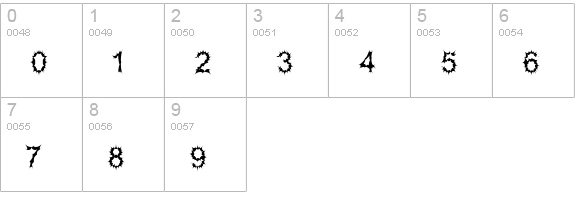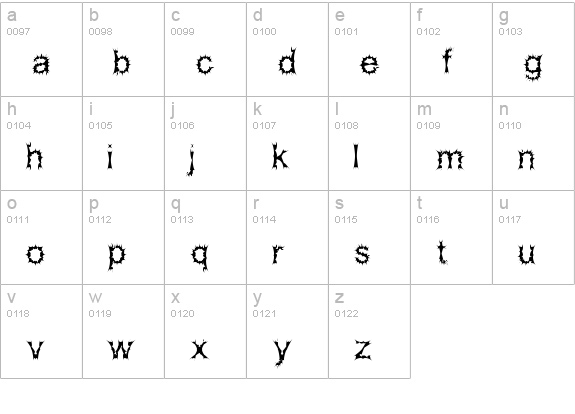
Satan Possessed Font Details
Introducing the devilishly captivating Satan Possessed font, a wickedly unique typeface that will possess your designs with an unrivaled sense of darkness and mystique. This font is a hauntingly beautiful creation, inspired by the sinister allure of the underworld and the chilling depths of the supernatural. With its carefully crafted letterforms, Satan Possessed exudes an air of malevolence and power, making it the perfect choice for projects that require a touch of the macabre. Whether you are designing a horror movie poster, a gothic album cover, or a spine-chilling book title, this font will leave a lasting impression on your audience, sending shivers down their spines. But what makes Satan Possessed even more captivating is that it is freely available to download at FontsMarket.com. Yes, you read that right. This font is not only devilishly captivating but also completely free for you to use in your personal and commercial projects. So, embrace the darkness and let Satan Possessed unleash its diabolical charm upon your designs. Don't miss out on this incredible opportunity to add a touch of satanic elegance to your creations. Download Satan Possessed today at FontsMarket.com and let your designs be possessed by the dark allure of this mesmerizing font.